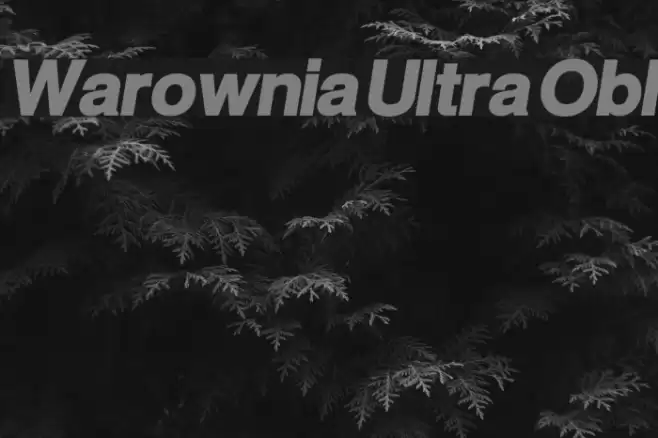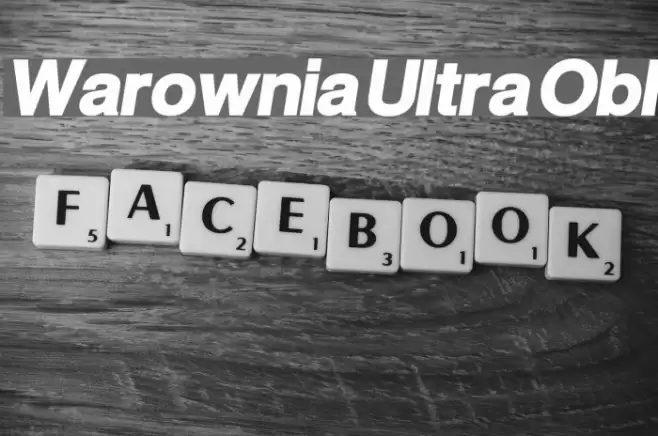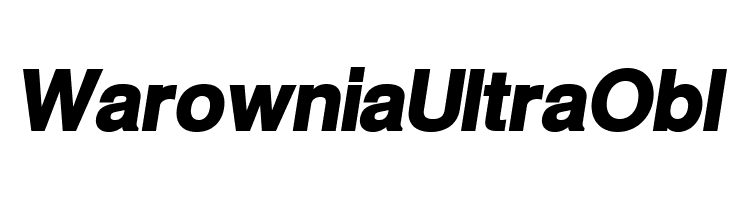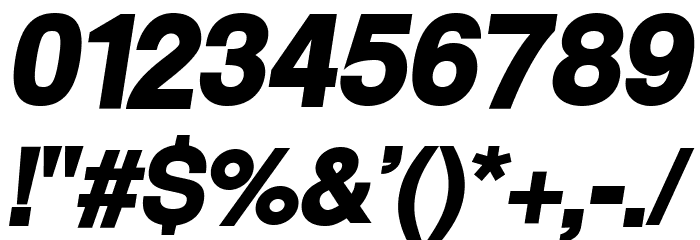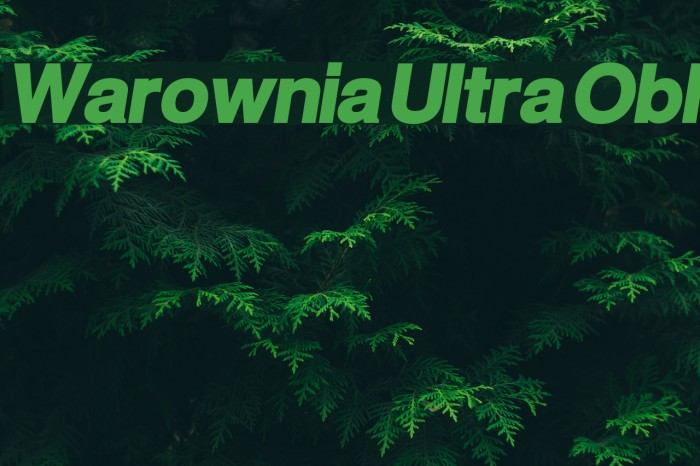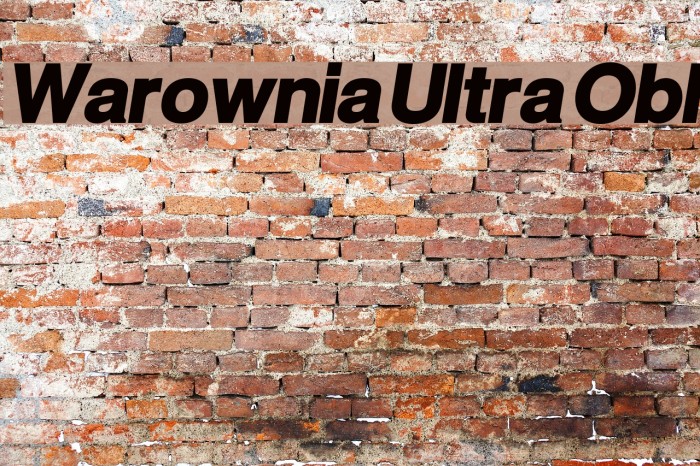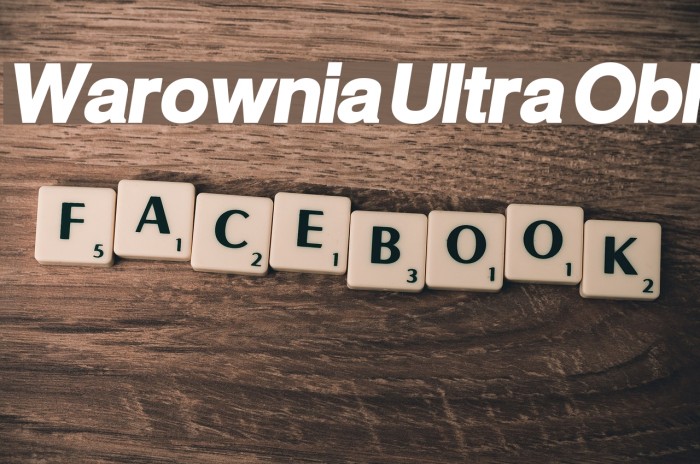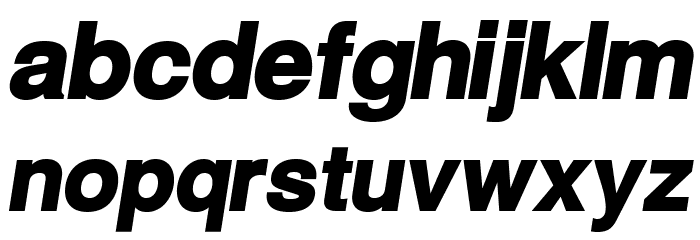
Warownia Ultra Obl
This font features a bold and dynamic design with a strong presence. The characters are slightly italicized, giving a sense of motion and energy. The strokes are thick and consistent, providing a high contrast that enhances readability. The overall style is modern and assertive, making it suitable for impactful headlines and attention-grabbing designs. The character spacing is normal, ensuring clarity while maintaining a compact appearance. This font is versatile and can be used in various creative projects where a bold statement is needed.
A bold, italicized font with high contrast and a modern style.
- Proposed Projects: Ideal for headlines, advertising, branding, and logo design.
- Contrast: High